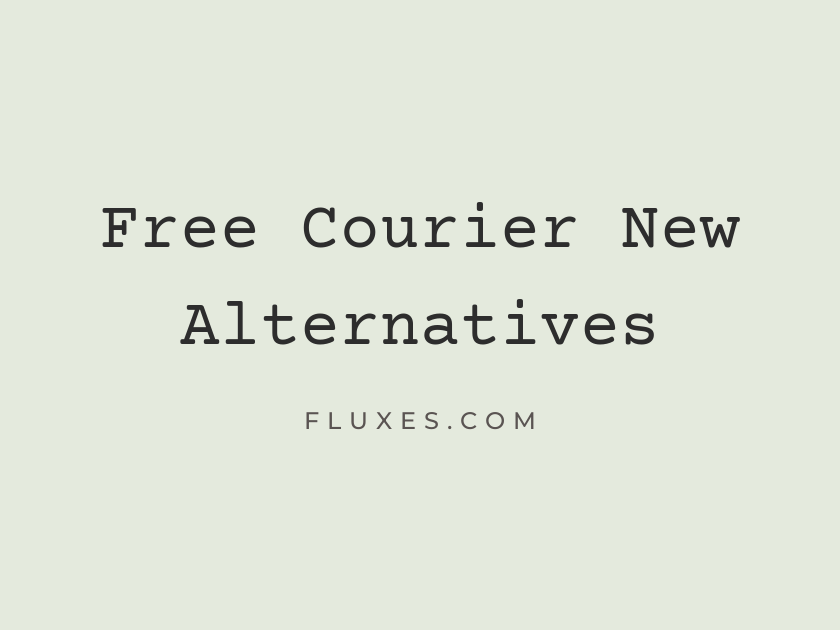
15 Best Free Fonts Alternatives to Courier New
Courier New has been the default typewriter face on word processors for decades, which is exactly why designers keep hunting for something with more personality, better hinting, or genuine open-source licensing. Whether you need a monospace font for code editors, a screenplay format that mimics an actual typewriter, or a resume that nods to old-school reports without looking dated, Google Fonts has a strong bench of free monospace alternatives that improve on the original in nearly every way. Some of these hew close to the classic Courier silhouette, while others take the fixed-width concept somewhere more modern.
Courier Prime
Built specifically for screenwriters who were tired of the licensing headaches around Courier New, this is the most direct replacement on the list. It matches the character width and general proportions of the original closely enough that scripts formatted in it will paginate the same way, but the letterforms are cleaner and less mushy at small sizes. If your goal is literally “Courier New but free and legal,” start here.
There is a quirky, slightly retro-futuristic charm to Space Mono that makes it a favorite for tech branding and editorial design that wants a coded, terminal-like feel without looking sterile. The bold weight in particular has a chunky, confident presence that works well in headlines and pull quotes. It pairs nicely with a plain humanist sans for body copy when you only want the monospace treatment in small doses.
Commissioned by IBM as part of a full corporate type family, Plex Mono carries an engineered, precise feel that suits interfaces, documentation, and code samples. It shares structural DNA with its sans and serif siblings, so if you are building a full type system, you can pull all three from one family and stay consistent. The lowercase letters are notably legible even at small sizes, which is where a lot of monospace fonts start to blur.
Designed by a software company for its own IDEs, this font was engineered around one job: keeping code readable for hours at a stretch. Letters like l, 1, and I are deliberately distinguished, and the taller x-height reduces eye strain on dense text. It is a natural pick for any project that is coding-adjacent rather than purely typewriter-styled.
As the fixed-width companion to Google’s own Roboto, this face has a neutral, slightly geometric feel that slots easily into product documentation and dashboards. It is unassuming by design, which is a compliment here; it does its job without calling attention to itself. Pair it with Roboto proper for a tidy, cohesive system.
Source Code Pro
Adobe’s contribution to the monospace category reads as sturdy and businesslike, with even spacing and a slightly condensed rhythm that fits comfortably into code blocks or tabular data. It holds up well in print as well as on screen, which not every coding-oriented monospace font manages. Expect it to feel closer to a modern sans than to a nostalgic typewriter.
PT Mono
There is a formal, almost bureaucratic weight to PT Mono that actually plays in its favor for anything meant to look like an official document or ledger. Its proportions are wider and steadier than most coding fonts, giving it a more old-fashioned, typewritten feel. It is a good choice when the brief calls for gravitas rather than a tech aesthetic.
Fira Code
Fira Code is best known among developers for its programming ligatures, which combine character pairs like “==” or “=>” into single glyphs for cleaner code reading. Outside of a code editor those ligatures matter less, but the underlying letterforms are still crisp and comfortable for any general monospace use. It can look slightly technical for non-coding contexts, so reserve it for projects with a software or engineering angle.
Inconsolata
One of the earliest breakout monospace fonts on Google Fonts, Inconsolata has a lighter, more refined stroke than Courier New’s boxy default. It reads as approachable rather than clinical, which has made it a long-running favorite for both code and plain-text writing environments. It can look a touch thin at very small sizes, so check your intended point size before committing.
Cousine
Cousine was built as a metrically compatible alternative to Courier New, meaning text set in one will occupy the same space as the other. That makes it a practical, low-friction swap for templates, forms, or legacy documents originally designed around Courier’s exact widths. It is not flashy, but that restraint is exactly the point for administrative and business documents.
When using a monospace font for headlines or branding, keep body text in a plain, high-legibility sans or serif. The contrast between fixed-width display type and proportional body copy tends to read as more intentional than an entire page set in monospace.
Any of these free Google Fonts options can stand in for Courier New without the compromises of an outdated system font, whether the project calls for strict compatibility, a genuine coding workhorse, or simply a fresher take on the typewriter look.